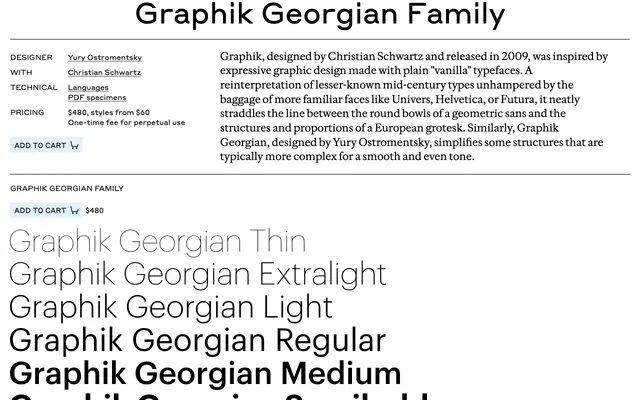
Graphik Georgian
Commercial Type · Yury Ostromentsky · 2019
Yury Ostromentsky's Georgian companion to Graphik, smoothing complex structures into a steady, even tone.
A Georgian companion to Graphik by Yury Ostromentsky, simplifying structures that are typically more complex in Georgian for a smoother, more even tone in running text. Nine weights with matching italics sit alongside the Latin Graphik, giving editorial brands and publications a calm, plain sans across the two scripts.
Commercial Type frame Graphik Georgian as Yury Ostromentsky's adaptation, simplifying structures that are typically more complex in Georgian for a smooth and even tone.